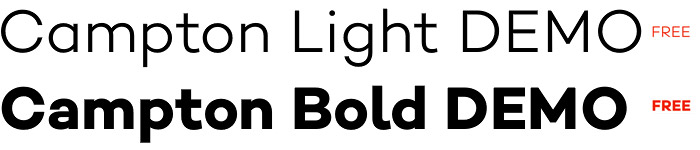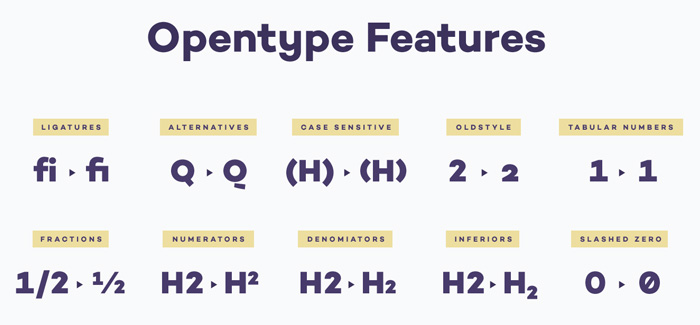
Campton font
Campton font by Rene Bieder (Rene Bieder foundry) is a comprehensive font family consisting of 18 fonts, plus 2 free demo fonts (Campton Light Demo font, and Campton Bold Demo font). Campton font family is visually attractive clear contemporary geometric Sans Serif, based on a typographic study of the mid twentieth century Grotesque typefaces like Helvetica, Akzidenz Grotesk, Futura, or Avant Garde.
Although there are a lot of typefaces focusing on similar principles, Campton font family stands out for its elegance, warmness and legibility. Campton font is perfectly suited for graphic design applications ranging from editorial and corporate design via web and interaction design through to product design.
Campton font family is packed with a great variety of alternative glyphs in order to fit in different contexts. It also offers a bunch of OpenType features like ligatures, stylistic alternates, case sensitive punctuations, old style numbers, etc.